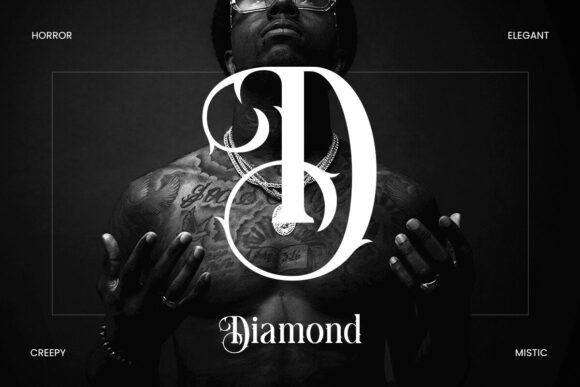
Deadly Sins Font
Deadly Sins is a gothic-inspired display font crafted for designers who want to create works with an intense, atmospheric, and unforgettable impression. Its sharp serifs, dramatic curves, and decorative swashes capture a sense of darkness and mystery, making it ideal for projects that need a bold and haunting visual identity.
This font works perfectly for movie titles, book covers, posters, Halloween designs, gothic branding, tattoo-inspired artwork, and dark-themed social media graphics. With its intricate details and commanding presence, Deadly Sins is a powerful choice for anyone looking to add elegance with a sinister edge to their designs.